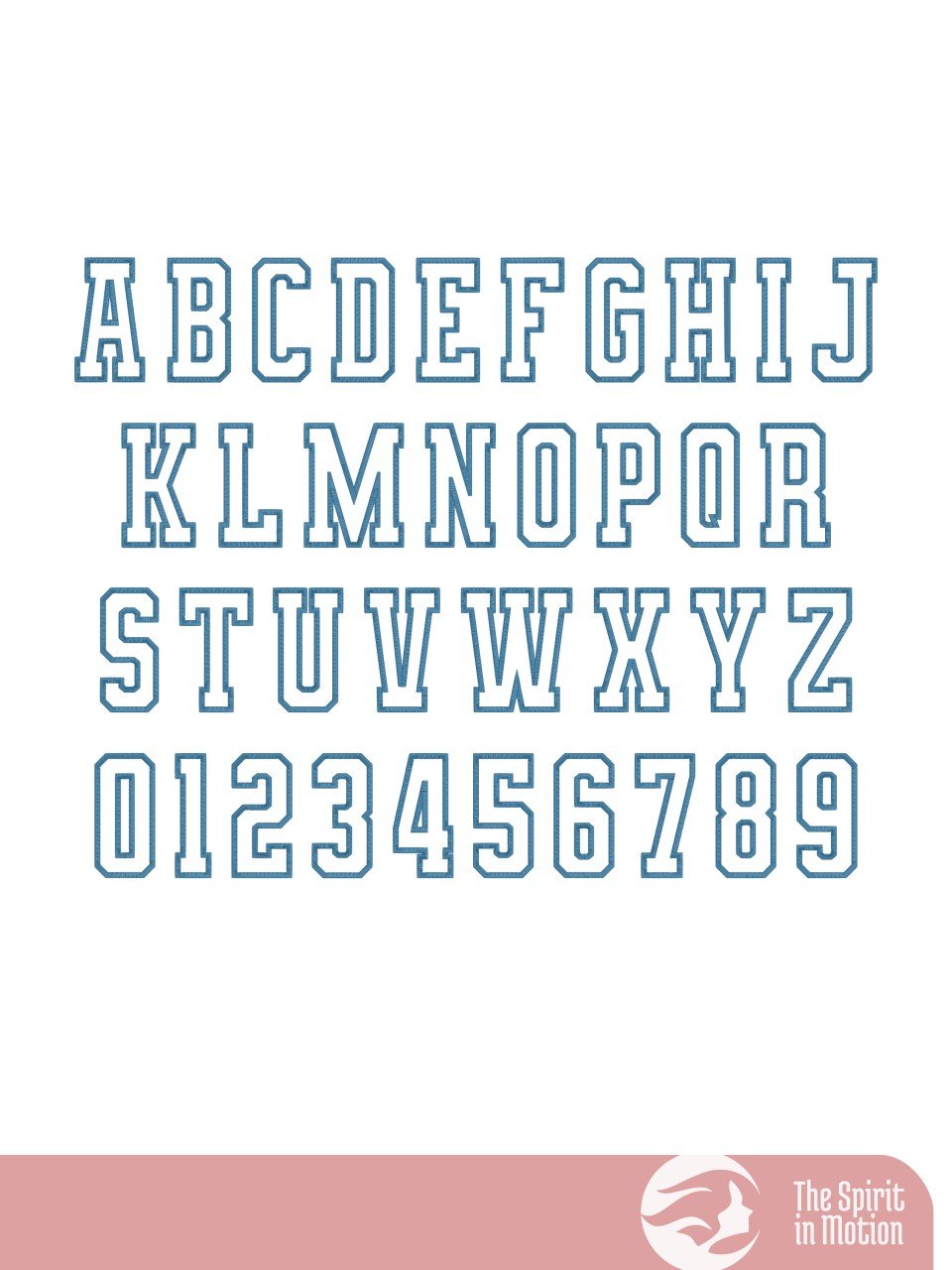
Squad Varsity Outline Embroidery Font | BX, PES, DST, JEF
Squad Outline is a bold, narrow, varsity-style embroidery font designed for athletic and team-themed projects. It includes uppercase letters A–Z and numbers 0–9, making it perfect for names, jersey numbers, and school spirit designs. It also works great with family celebration and pre-wedding apparel. The set comes in 15 sizes to suit a variety of placements, from sweatshirts to bags. Provided in various formats including PES and stitch-based BX, it is compatible with many popular embroidery machine brands.